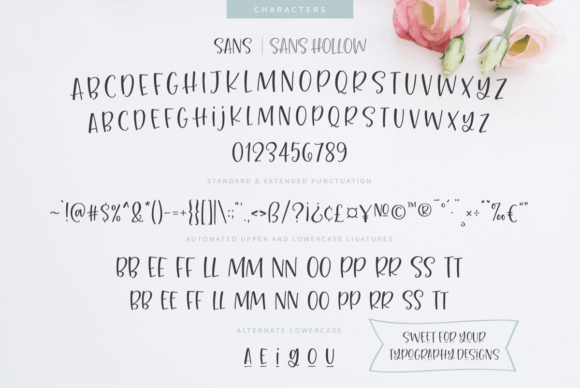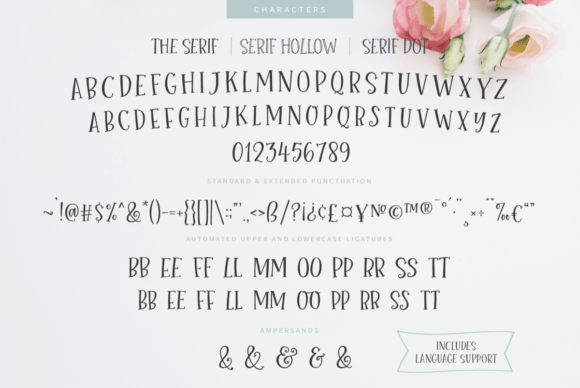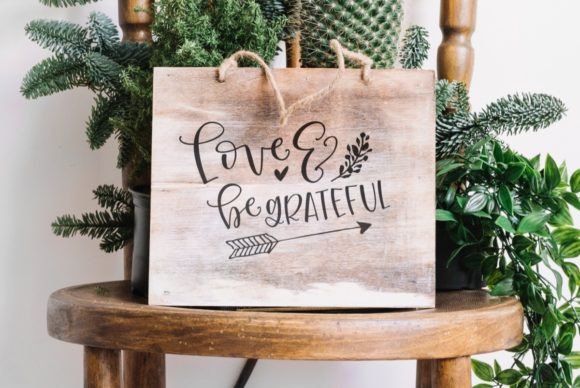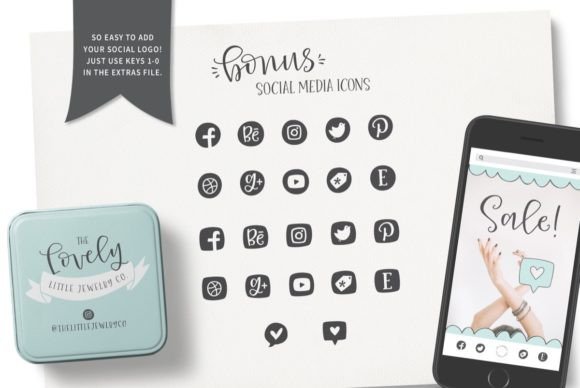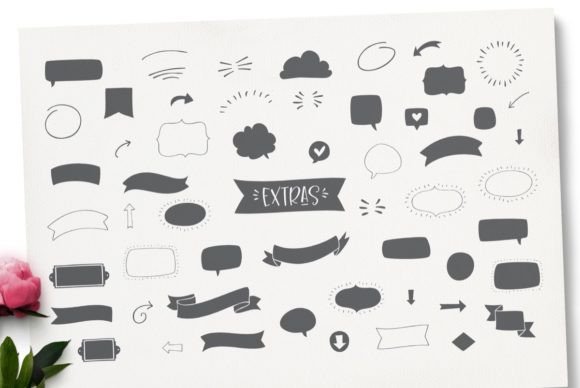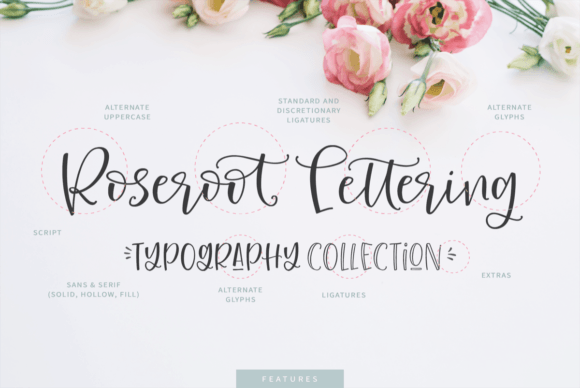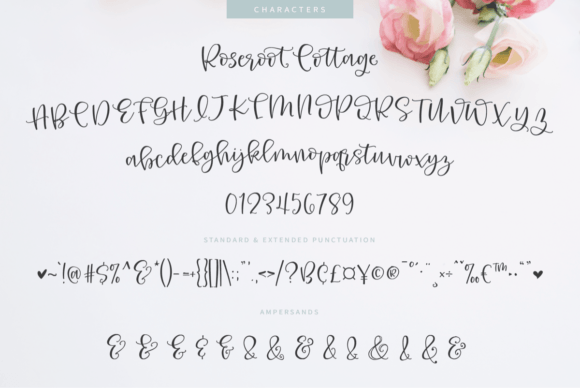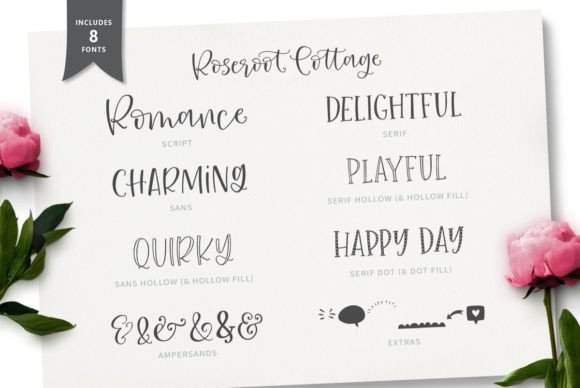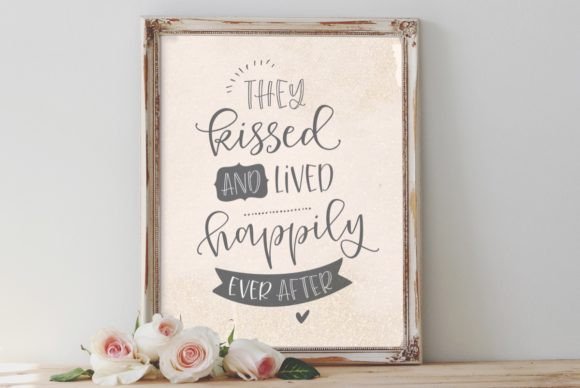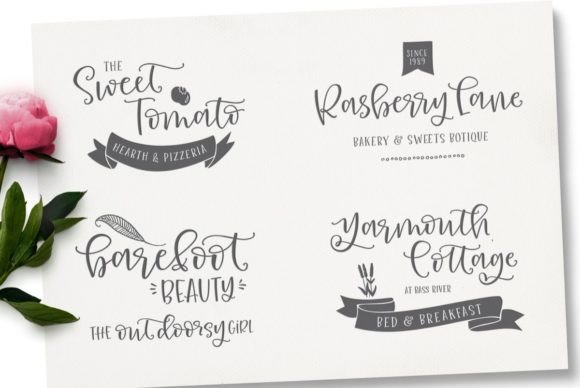
Roseroot Cottage Collection Font
About Roseroot Cottage Collection Font
Introducing the delightful Roseroot Cottage—a font that encapsulates the essence of sweet, romantic, playful, and just a touch quirky. Let’s be real, when is real-life romance ever perfect? Roseroot Cottage embraces the imperfect charm of hand-lettering, making it a darling cursive script with a personality all its own.
What sets Roseroot Cottage apart is its meticulous attention to detail. This font doesn’t settle for standard; it mimics imperfect hand-lettering with finesse. Every lowercase character comes with multiple alternates, ensuring that no two letters are exactly the same. This diversity extends to common repetitive characters, providing a nuanced and authentic look to your text.
But the magic doesn’t stop there. Roseroot Cottage is equipped with automated standard and discretionary ligatures for both uppercase and lowercase letters. And if that’s not enough, there are even more ligatures for you to explore and choose from. The font empowers you to alternate between initial and terminal forms, allowing you to customize the flow of every letter to suit your vision.
Picture this: Roseroot Cottage adding a touch of whimsy to wedding invitations or bringing a playful vibe to branding materials. The font’s romantic and quirky nature ensures that your type will stand out from the crowd. It’s not just a font; it’s a storytelling tool that allows you to infuse your projects with character and personality.
In essence, Roseroot Cottage is an invitation to embrace the imperfect beauty of romance. Its sweet, playful, and romantic qualities make it a versatile and charming addition to your creative toolkit. Let Roseroot Cottage be the storyteller in your designs, weaving a narrative of love, whimsy, and individuality.